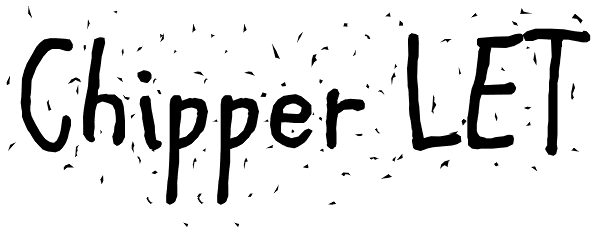
Chipper
If a style bubbling with innocent mischief is what you're after, this one will delight you! Chipper looks as though it was created by a child's slightly shaky hand, but the even color of the line weights reveals a professional, behind-the-scenes...